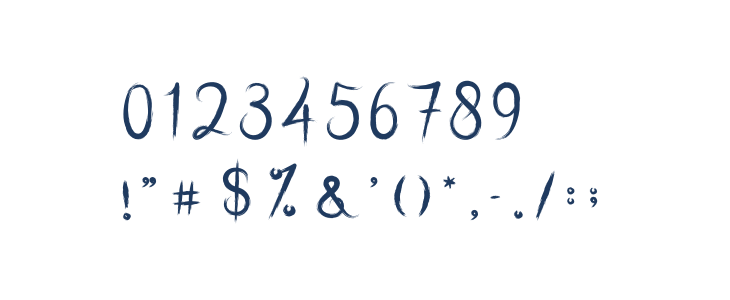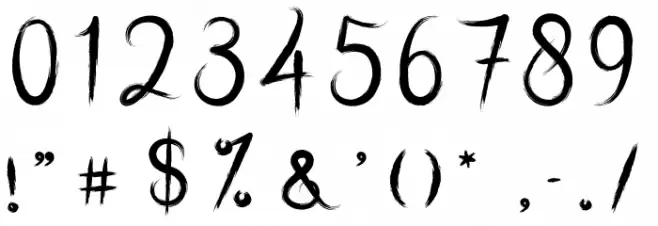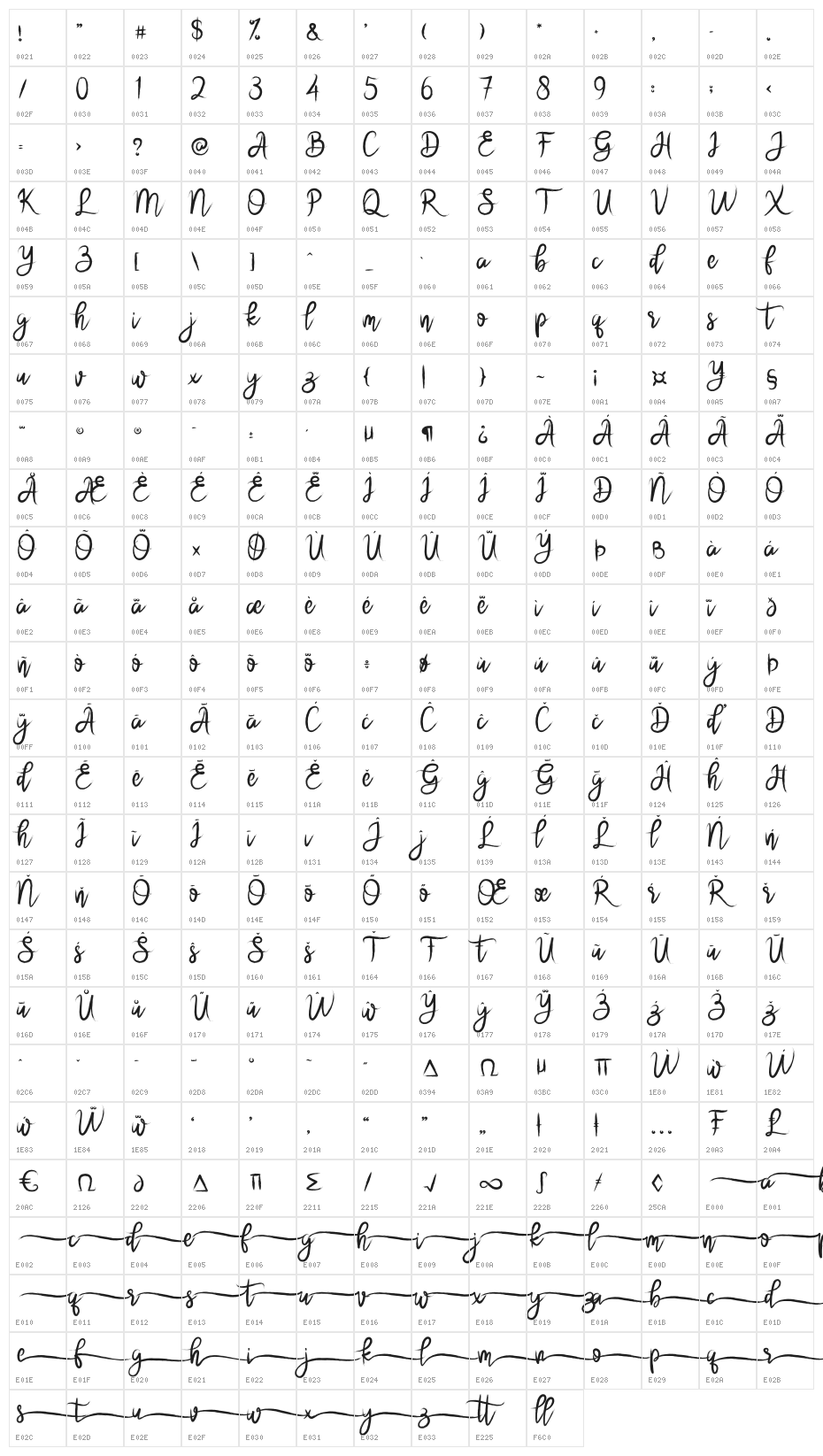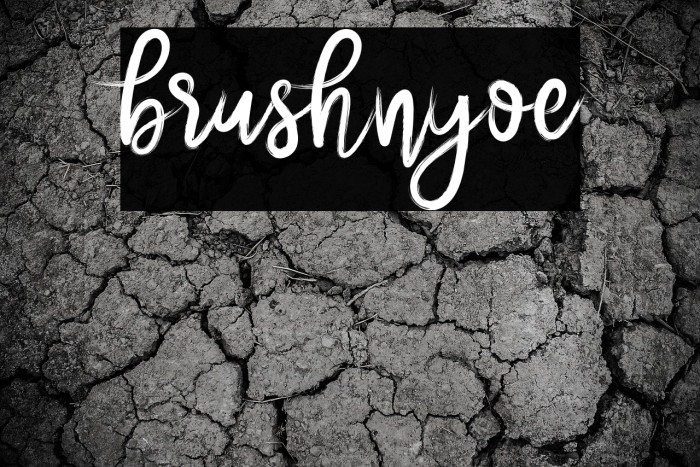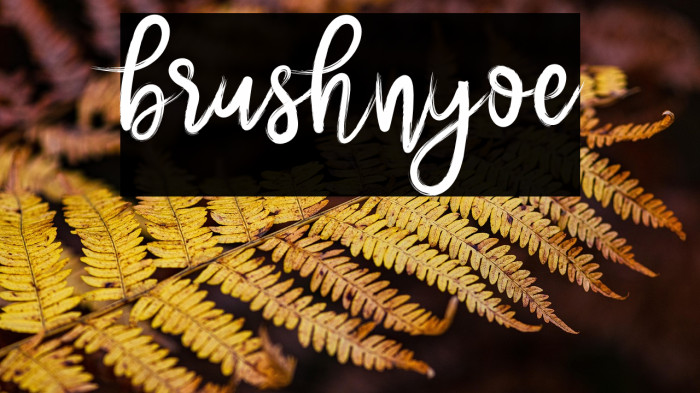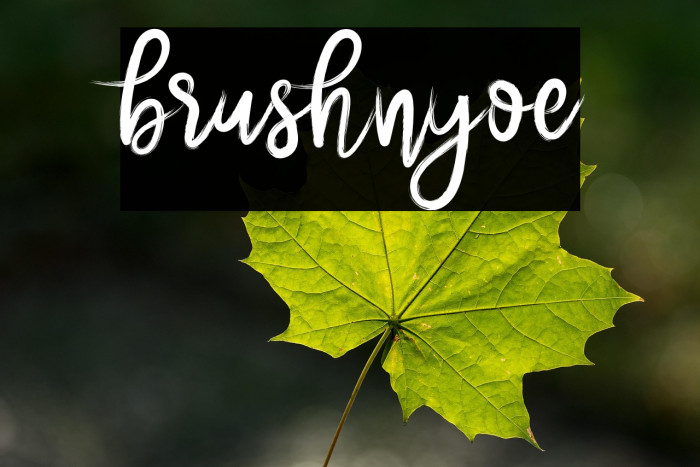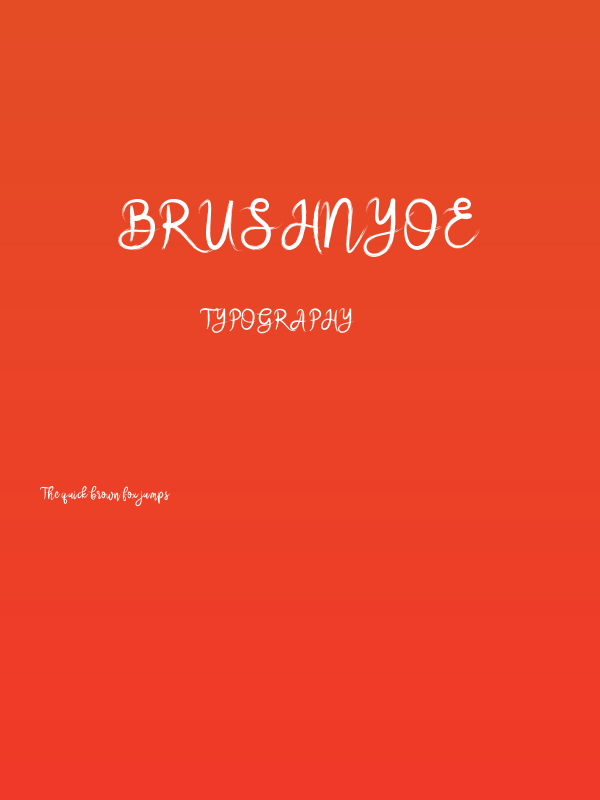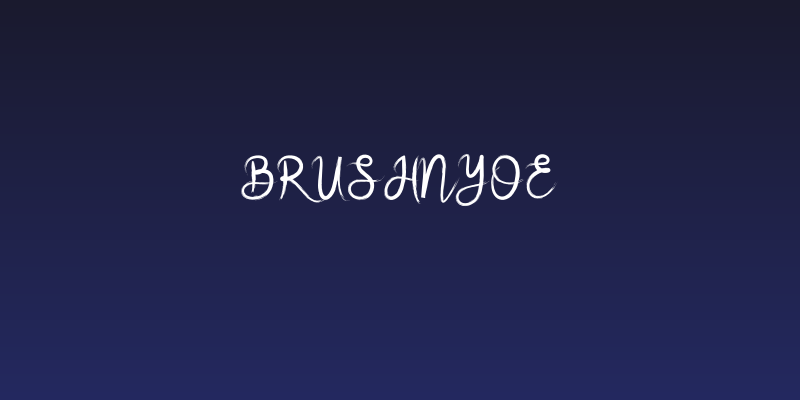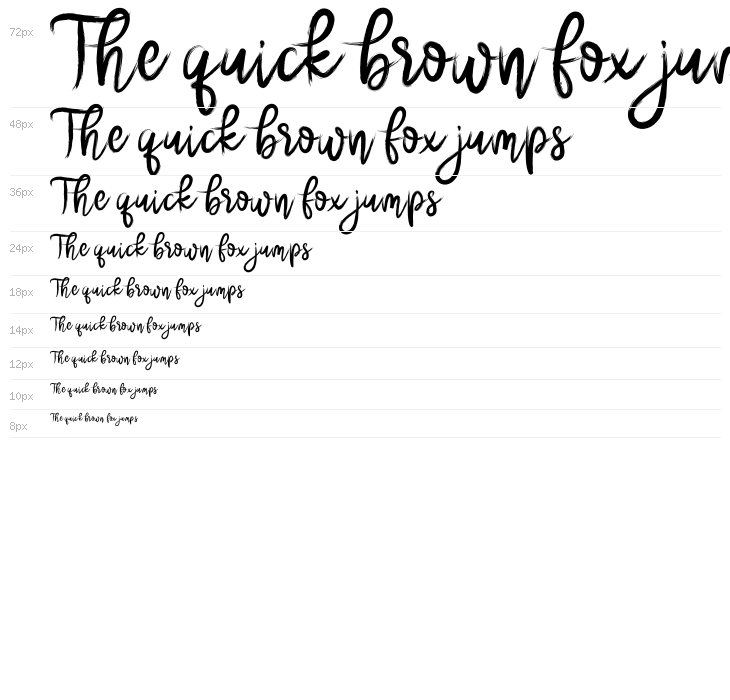
brushnyoe Font
brushnyoe Description
This font features a dynamic and expressive style, characterized by its brush-like strokes that convey a sense of movement and fluidity. The uppercase letters are bold and slightly slanted, giving them a dramatic flair, while the lowercase letters maintain a consistent flow with elegant curves. The numerals are distinct and maintain the brush style, adding to the cohesive look. Special characters are creatively integrated, enhancing the font's artistic appeal. Overall, the font exudes a handcrafted, artistic vibe, making it suitable for creative and expressive design projects.
| Proposed Projects | Ideal for branding, invitations, greeting cards, posters, and artistic projects that require a personal touch. |